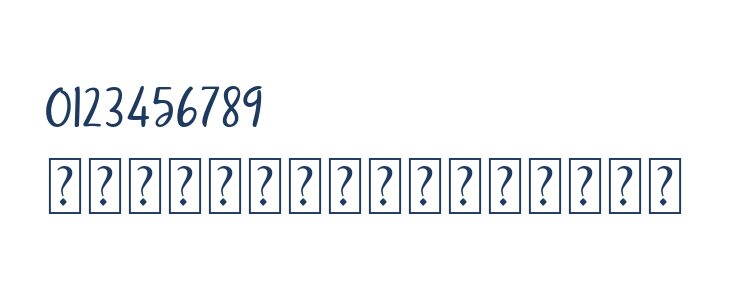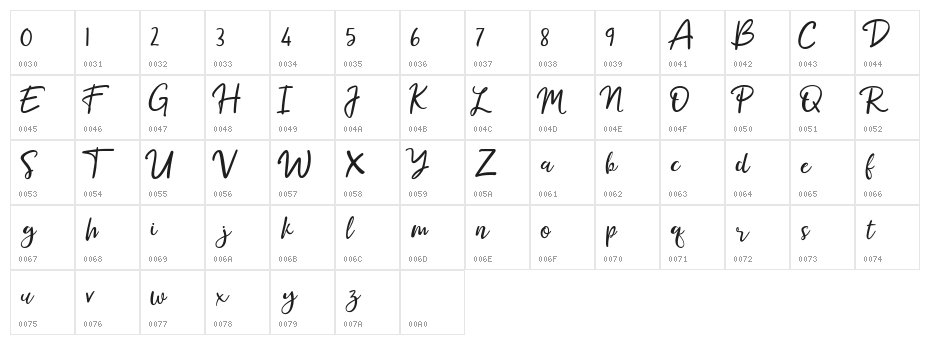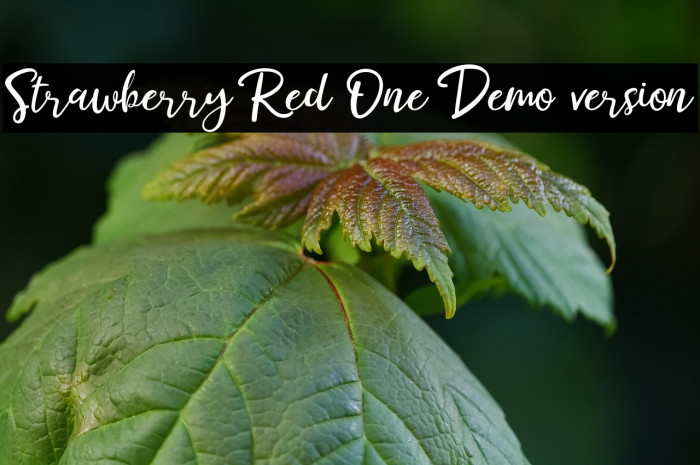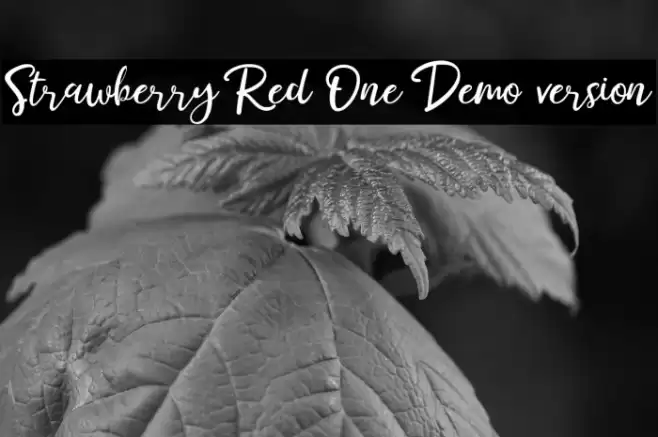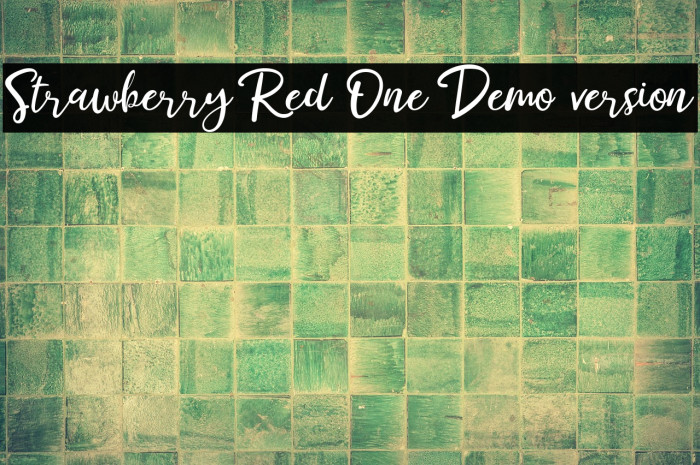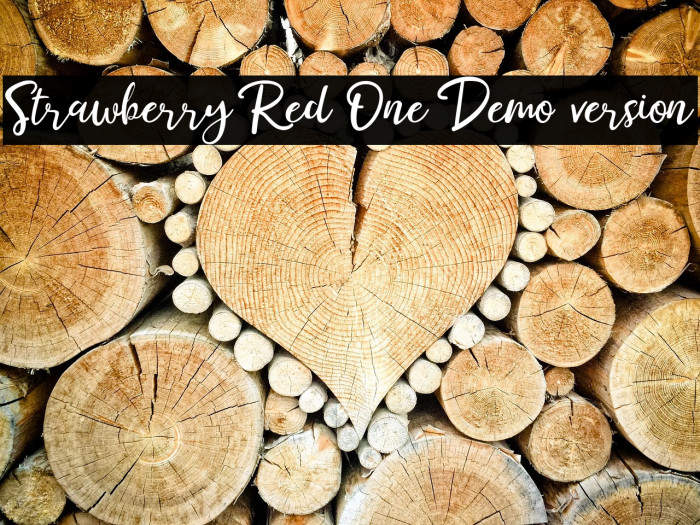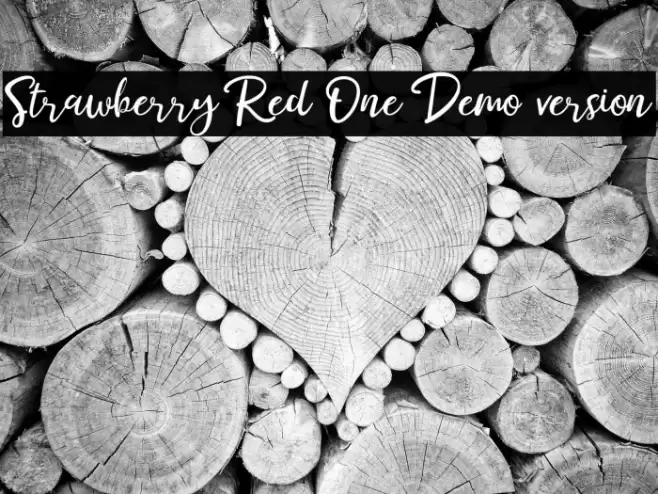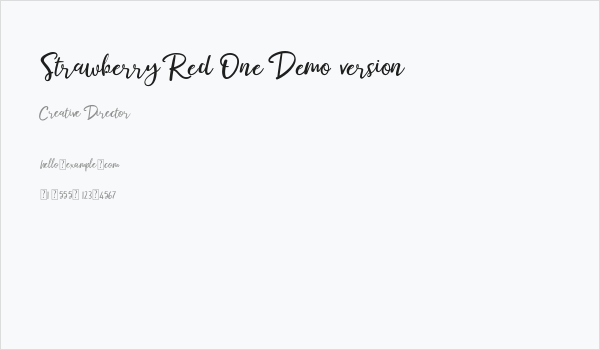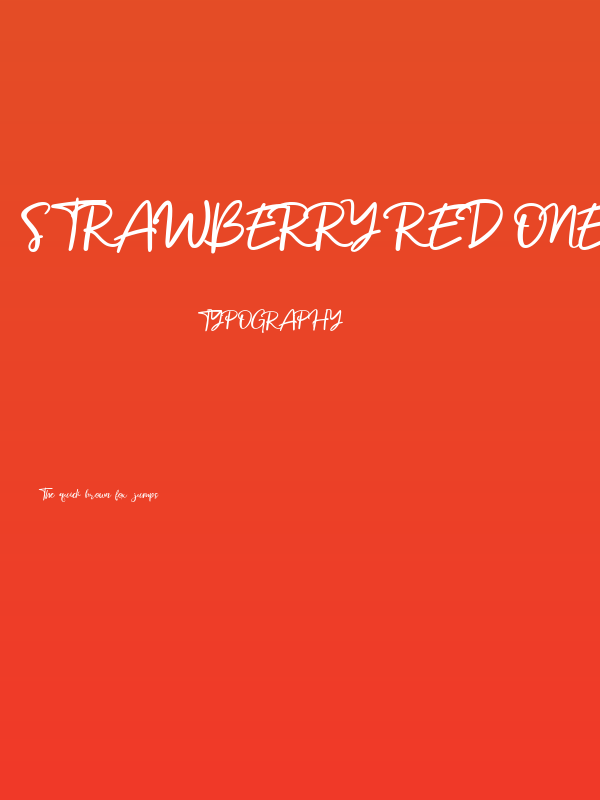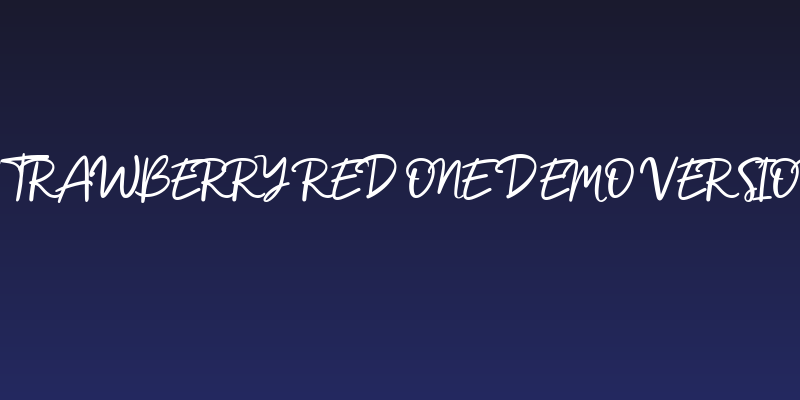
Strawberry Red One Demo version Font
Strawberry Red One Demo version Description
This font exudes a playful and energetic vibe with its handwritten style. The characters are crafted with a smooth, flowing script that mimics natural handwriting, giving it a personal and approachable feel. The uppercase letters are bold and slightly slanted, while the lowercase letters maintain a consistent flow with elegant loops and curves. The numbers are clear and legible, matching the overall style of the alphabet. This font is perfect for projects that require a touch of personality and charm, such as invitations, greeting cards, or branding materials.
| Overall Style | Playful, Energetic |
| Proposed Projects | Ideal for invitations, greeting cards, branding, and personal projects. |